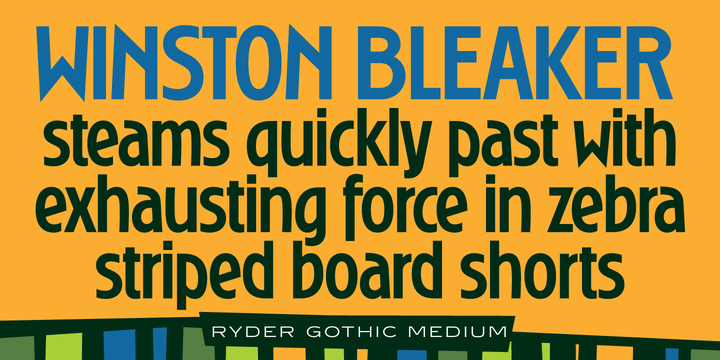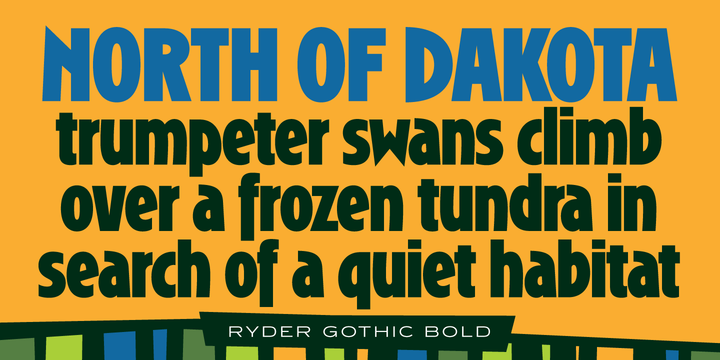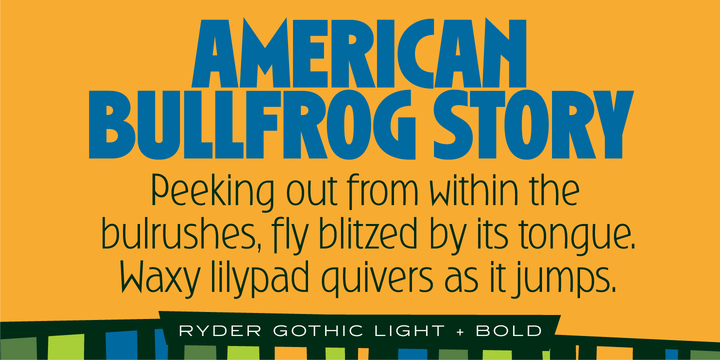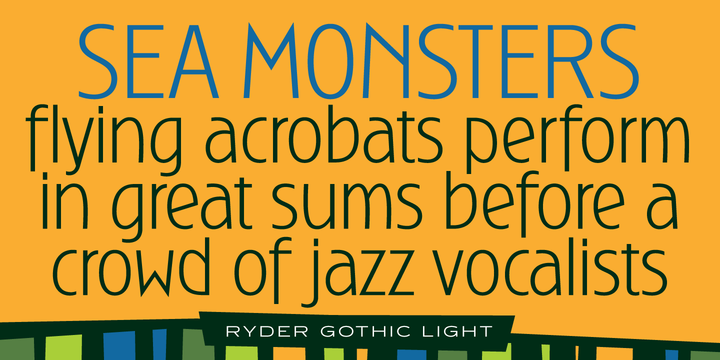
Ryder Gothic Pro Font Family
About this font family
A revival based on the Harry Winters design ‘Roslyn Gothic’ released by VGC in 1972.
We’ve added a new light weight and several alternate glyphs. Ryder Gothic contains all the high-end features expected in a quality OpenType Pro font.